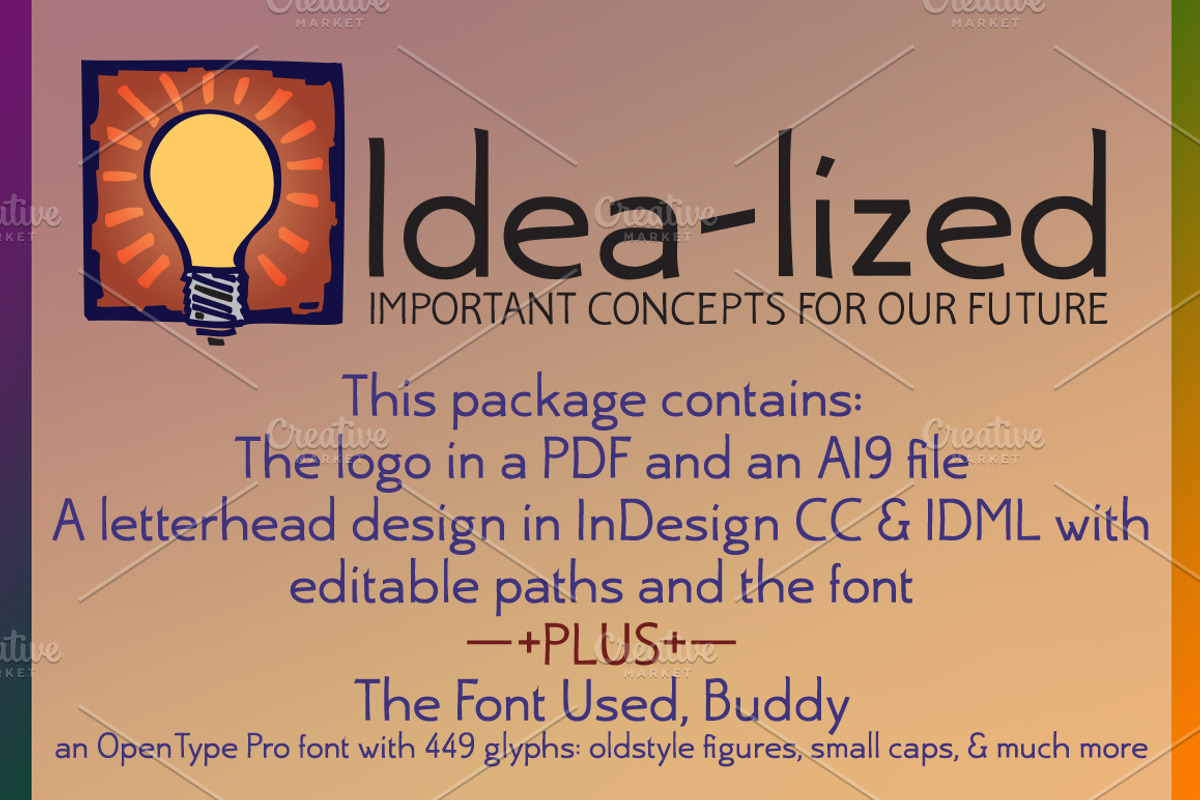
Idea-lized logo & font package
Idea-lized logo & font package by Radiqx Press is a font selected for branding, posters, packaging, typography.
- This is a package of a nice little logo and an excellent sans serif font—OpenType Pro with many features.
Why Idea-lized logo & font package is worth a look
Idea-lized logo & font package by Radiqx Press fits naturally into Branding, posters, packaging, typography.